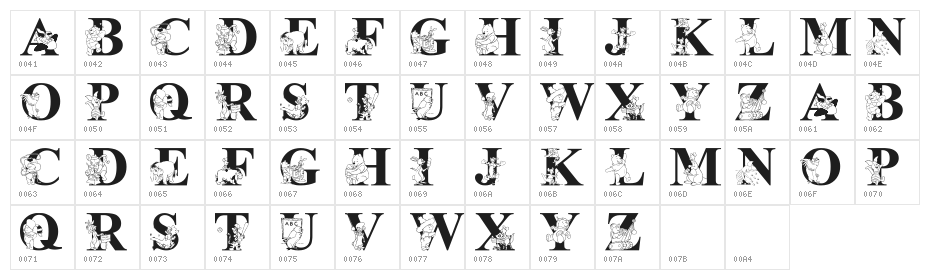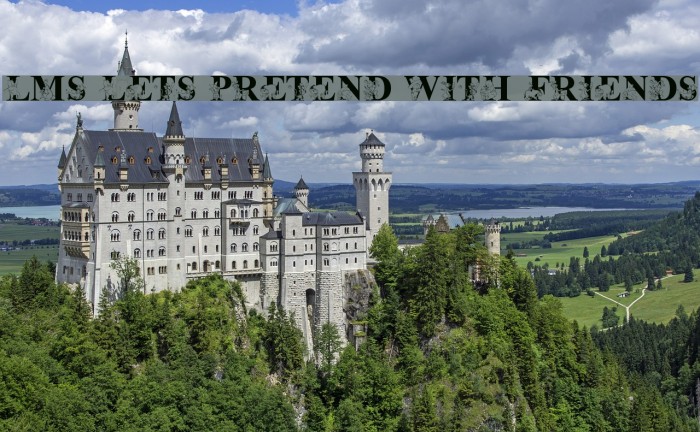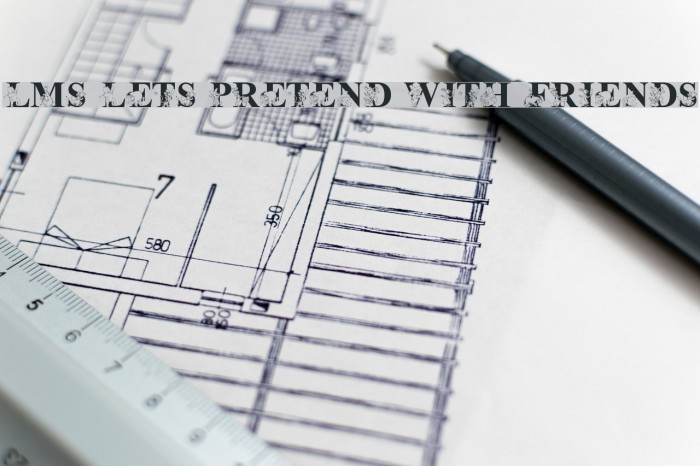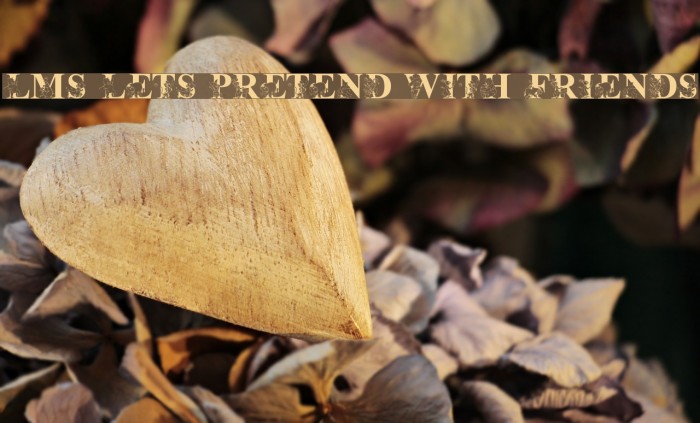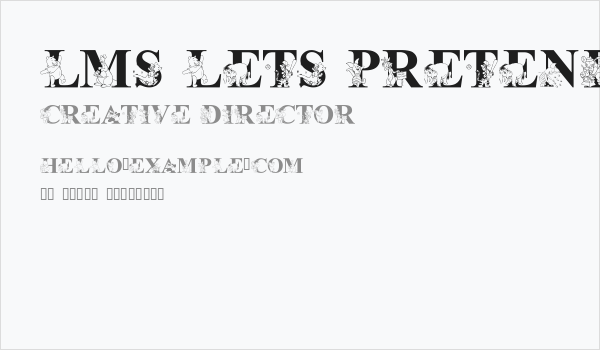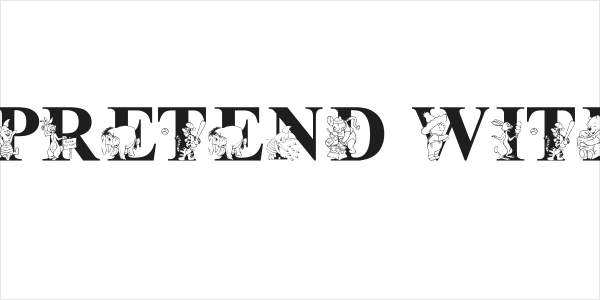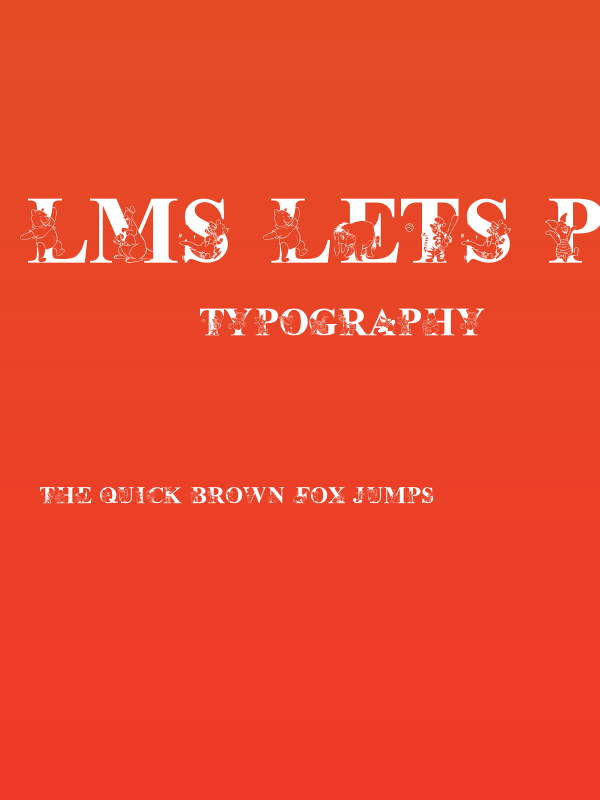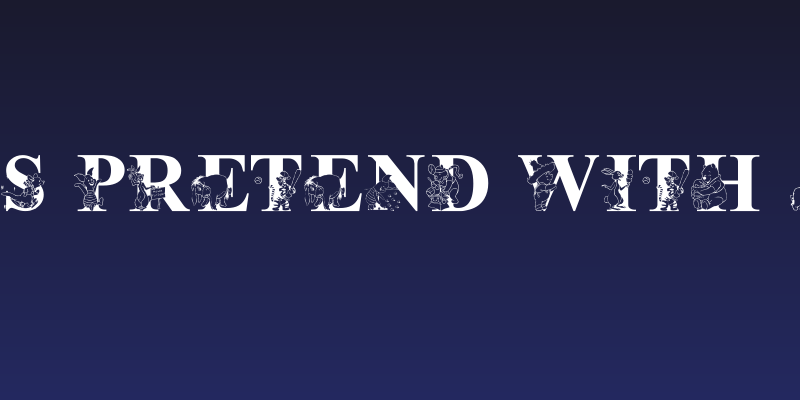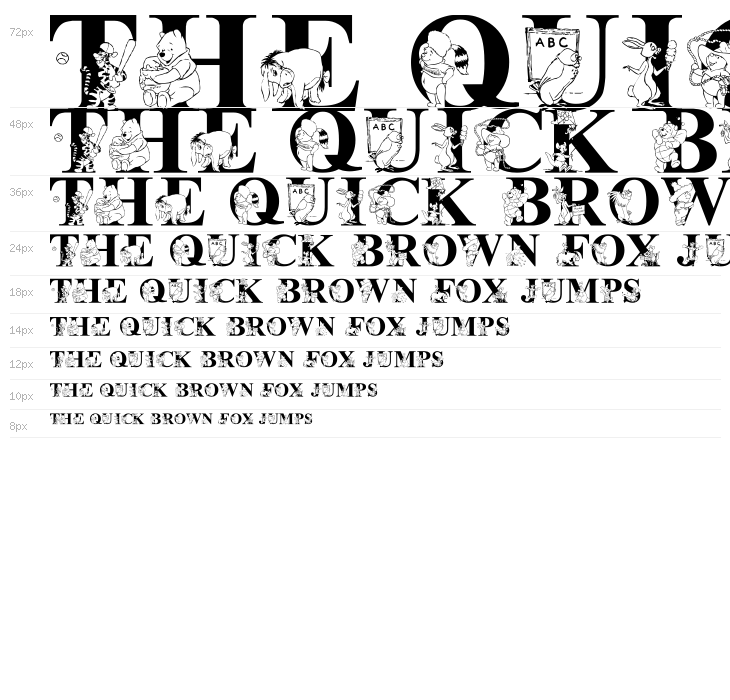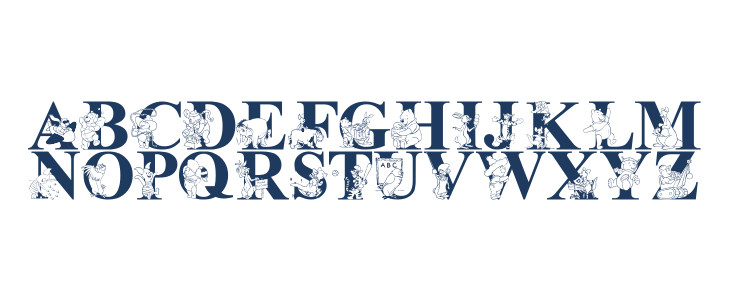
LMS Lets Pretend with Friends Font
LMS Lets Pretend with Friends Description
This playful and decorative font features uppercase letters filled with whimsical illustrations of children and playful scenes. Each character is uniquely designed, integrating charming graphics that evoke a sense of fun and imagination. The font maintains a bold and solid structure, ensuring readability while adding a creative twist with its detailed artwork. The absence of lowercase letters and numbers suggests a focus on decorative use, making it ideal for projects that require a touch of creativity and playfulness. The overall style is both engaging and visually appealing, perfect for capturing attention.
| Proposed Projects | Ideal for children's book covers, playful posters, educational materials, and creative invitations. |